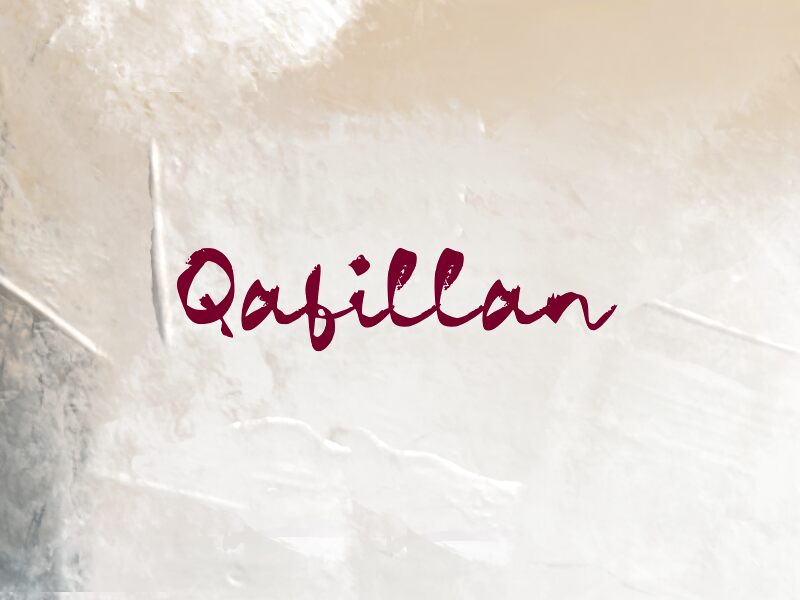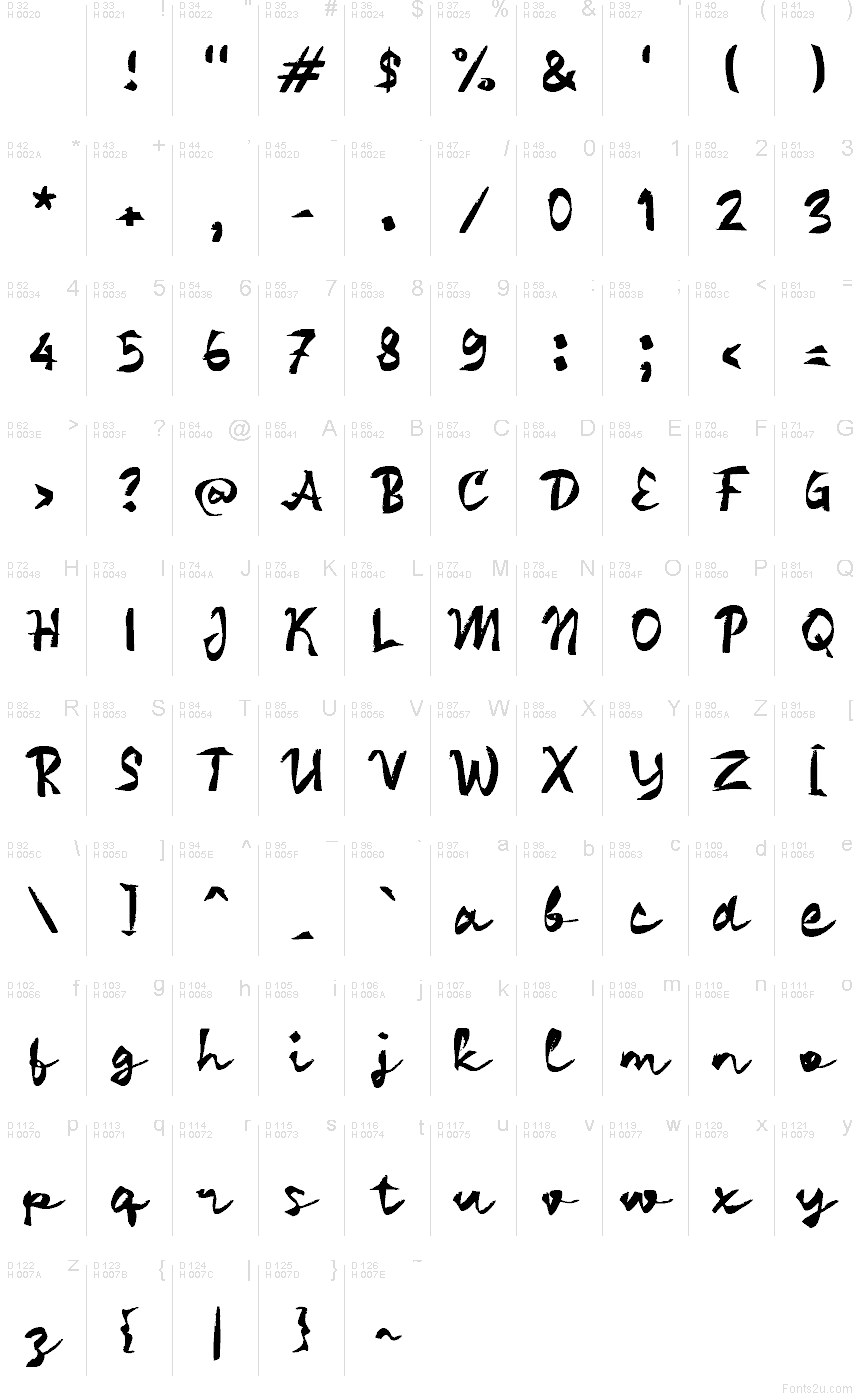
Qafillan
Qafillan font by wepfont.com is a free brush script typeface with the raw, inky swagger of hand-painted signage. Its strokes feel fast and a little unrestrained, with rough edges and splatters that keep text from ever looking stiff or overpolished. The lowercase letters link together in an easy, slanted flow, giving your words a sense of movement, like they were written in one confident sweep.
Using Qafillan, you can inject instant attitude into posters, album covers, social media graphics, streetwear branding, packaging, and bold quote layouts. This free font shines when set large, letting the texture and irregular rhythm really show; pair it with a clean sans serif for body text to keep everything readable while Qafillan does the expressive heavy lifting.